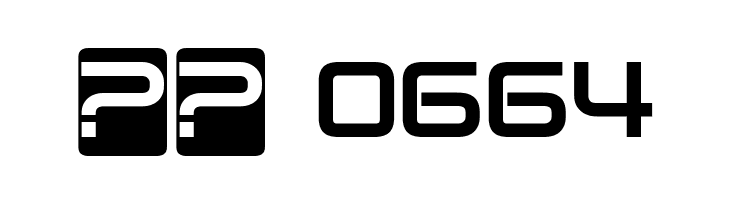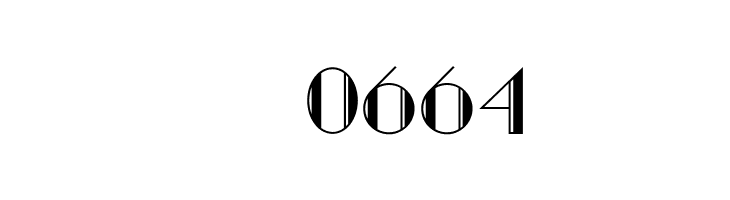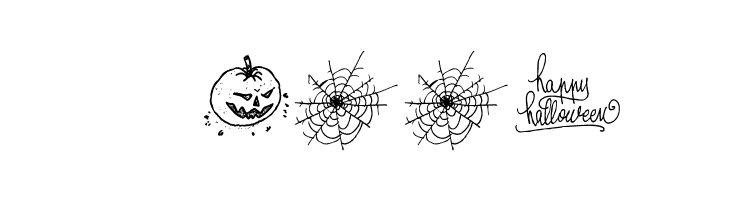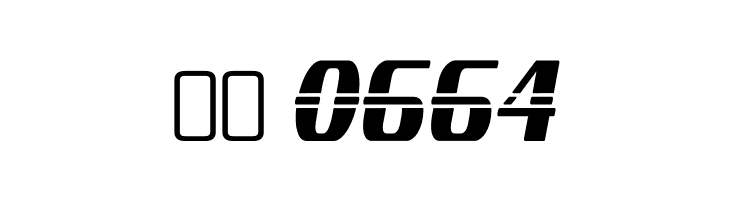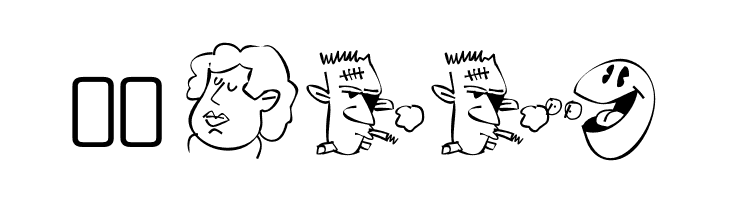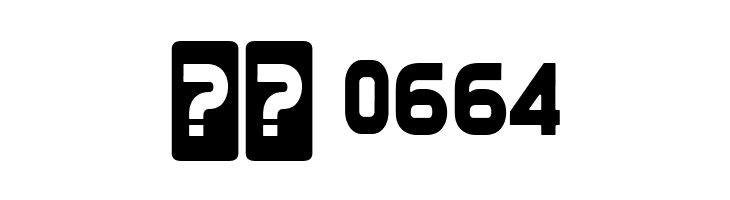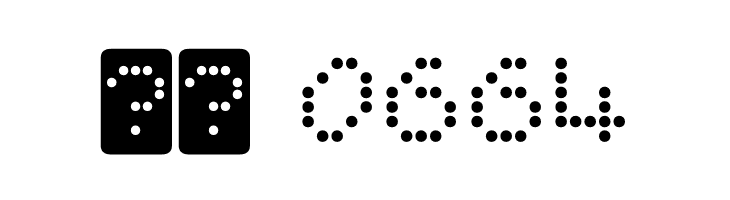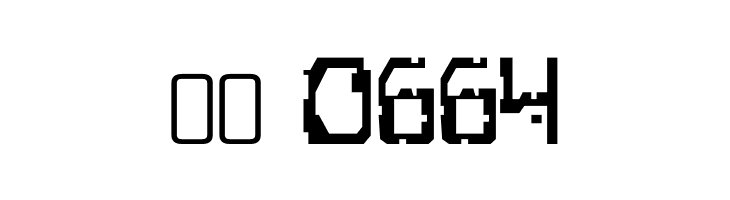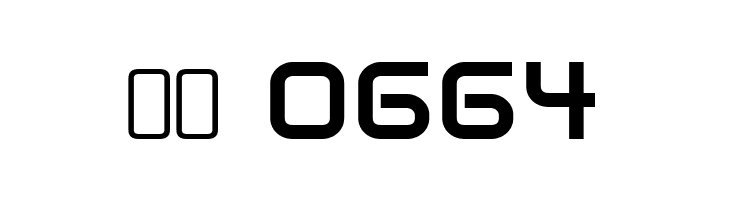
A bold, angular font with sharp, geometric lines and a dynamic style.
A bold, futuristic font with angular, slanted characters and a unique cut-through line.
A bold, modern font with a slanted, dynamic style and unique cut-through lines.
A dynamic, italicized font with a modern, speedy aesthetic.
A dynamic, futuristic font with sharp, angular lines and a slanted orientation.
A bold, experimental sans-serif font with gaps and slants for enhanced memory retention.
A playful, handwritten font with elongated, slanted letterforms and consistent stroke weight.
A modern, geometric font with consistent stroke widths and a minimalist design.
A collection of festive and decorative holiday-themed illustrations.
A playful decorative font with cartoonish faces and characters.
A playful font with cartoonish faces and characters, full of humor and creativity.
A bold, geometric font with decorative elements and intricate curves.
A decorative font with geometric elements and high contrast, offering a sophisticated yet playful style.
A modern, geometric font with uniform strokes and a futuristic style.
A modern, geometric font with a futuristic and sleek design.
A modern, dotted font with a playful and tech-savvy aesthetic.
A playful, dotted font with a modern and creative style.
A bold, three-dimensional font with a shadow effect for impactful designs.
A bold, shadowed font with a three-dimensional appearance, perfect for striking headlines.
A bold, modern sans-serif font with clean lines and geometric shapes.
A bold, modern sans-serif typeface with clean lines and uniform stroke widths.
A smooth, cursive handwritten font with a personal touch.
A bold, geometric font with a modern and robust design.
A bold, geometric font with a modern and assertive style.
A bold, geometric font with a pixelated, digital aesthetic.
An artistic and decorative font with intricate flourishes and elegant strokes.
An artistic, decorative font with intricate loops and flourishes.
Pixelated skulls in a retro, arcade-style design.